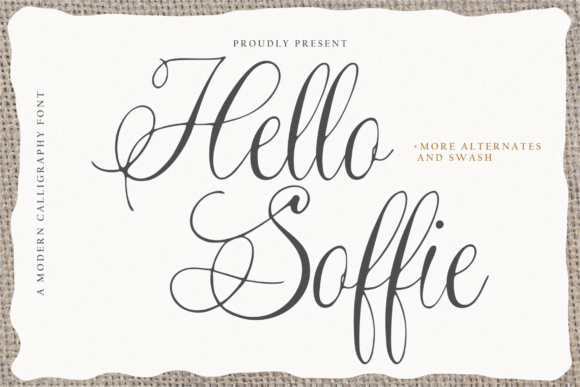
Allow us to introduce you to Hello Soffie Font, a remarkably graceful and distinguished script font, meticulously crafted by qwrtypefoundry, that is destined to make an unforgettable mark on your creative endeavors. Hello Soffie's unparalleled elegance and inherent sophistication will effortlessly elevate your designs, making them exude an aura of charm and sophistication that is certain to captivate and intrigue.
Immerse yourself in the world of Hello Soffie and discover a font that is more than just a collection of letters and symbols; it is an artistic masterpiece, a brushstroke of creativity that will transform your designs into breathtaking works of art. Its sweeping curves and delicate flourishes evoke a sense of timeless beauty, while the subtle nuances and intricate details add depth and dimension to each letterform.
With Hello Soffie at your disposal, you possess the power to conjure captivating and enchanting designs that will set you apart from the ordinary. Whether you're crafting wedding invitations, heartfelt love letters, or eye-catching social media posts, Hello Soffie will infuse your words with an eloquence and grace that will leave a lasting impression on your audience.
But Hello Soffie's allure extends far beyond its aesthetic appeal. As a PUA-encoded font, it grants you effortless access to an array of glyphs and swashes, empowering you to unleash your creativity and explore endless possibilities. Experiment with different combinations and arrangements to create unique and personalized designs that reflect your unique style and vision.
Do not resist the allure of Hello Soffie; embrace its captivating charm and let your imagination soar. It is the perfect font for individuals who seek to make an indelible mark, who strive for excellence in their creative pursuits. With Hello Soffie as your creative companion, you possess the key to unlocking a world of endless possibilities, where your designs will blossom into masterpieces that inspire, captivate, and leave a lasting legacy.